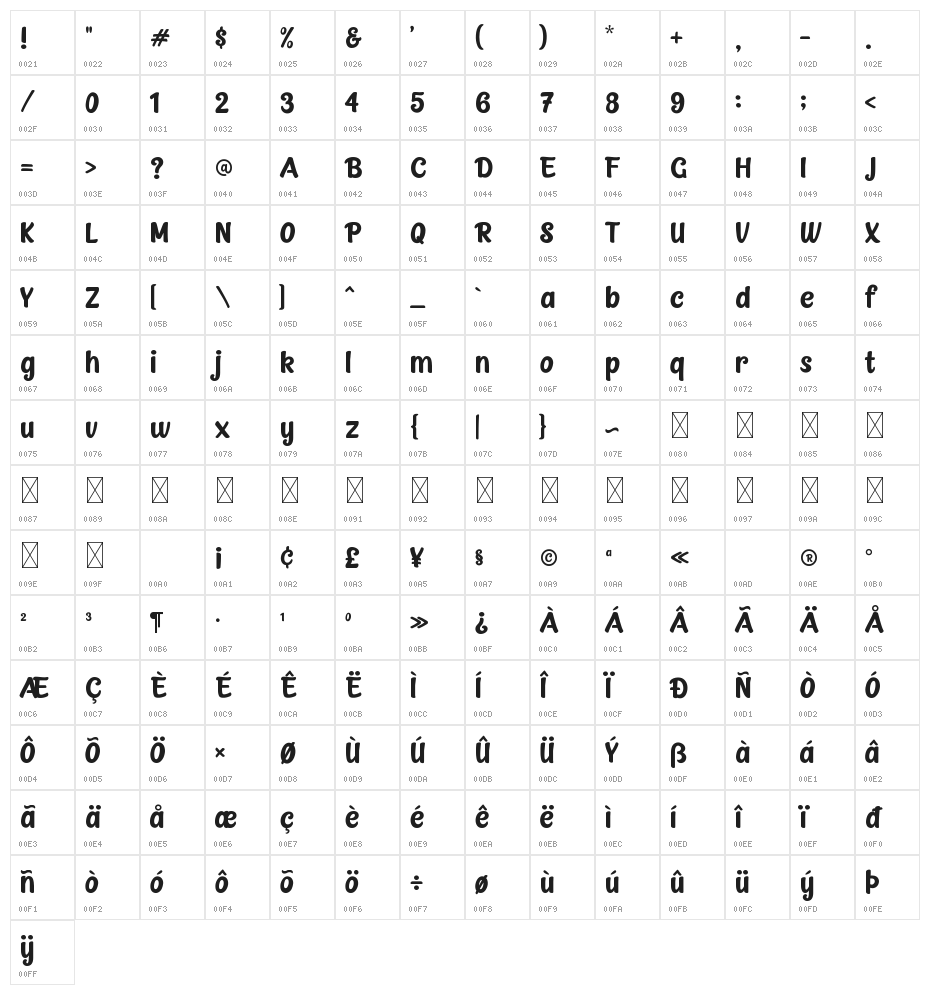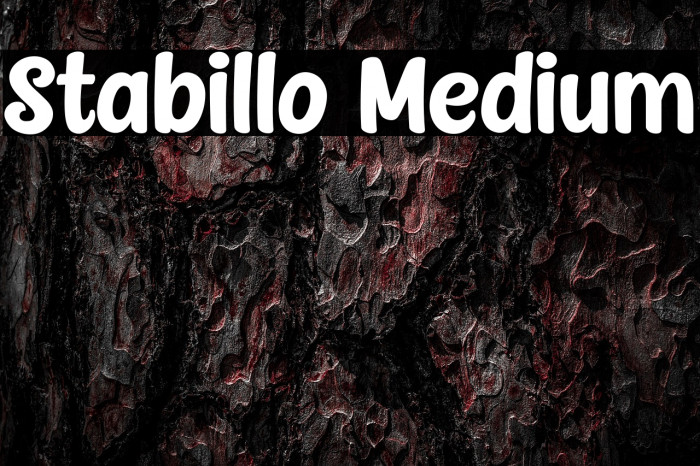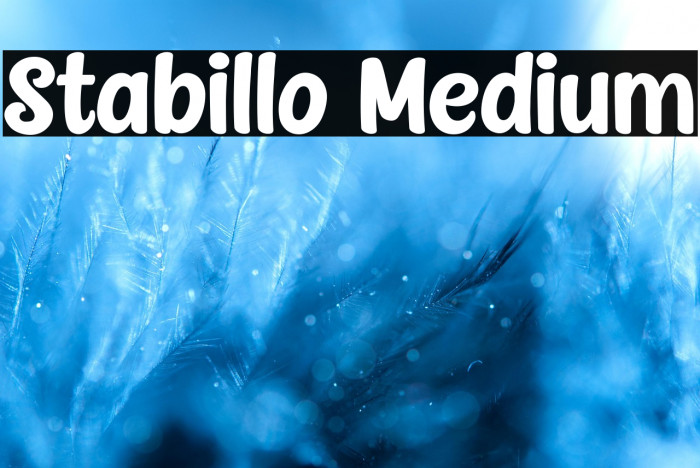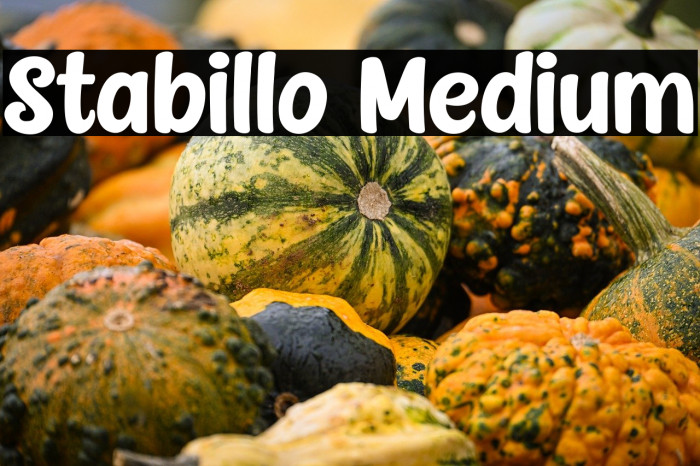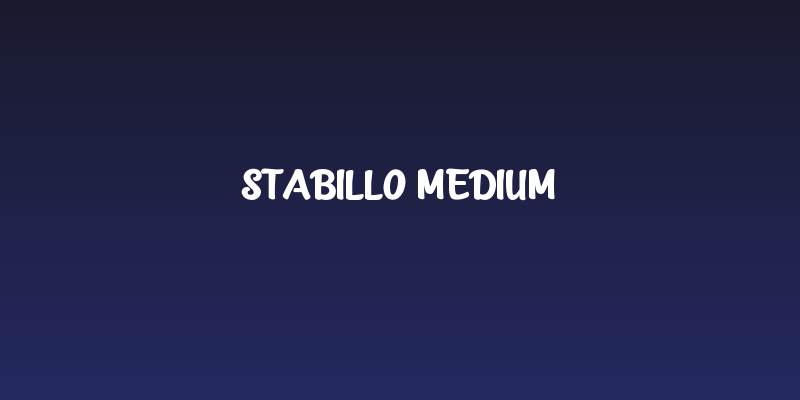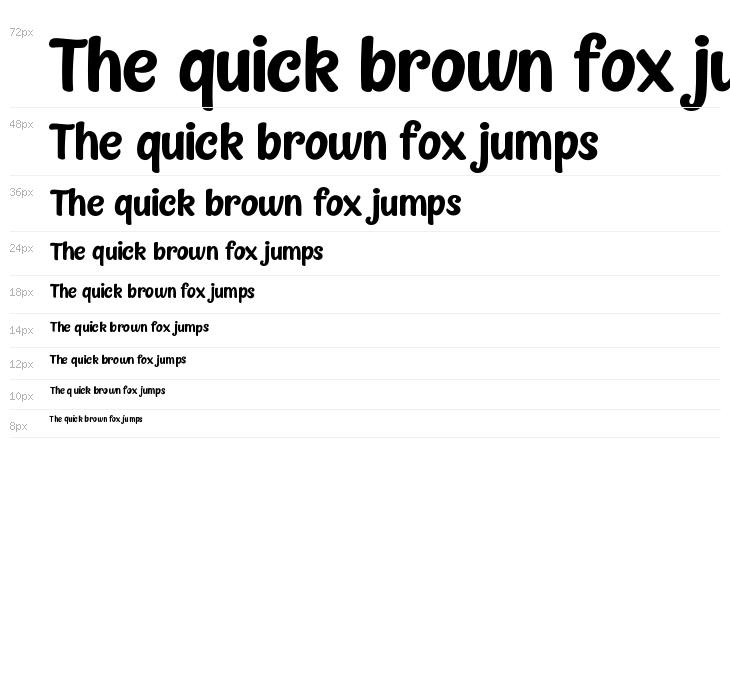
Stabillo Medium Font
Stabillo Medium Description
This font features a bold and playful style with rounded edges and a smooth flow, giving it a friendly and approachable appearance. The uppercase letters are slightly wider than the lowercase, maintaining a consistent weight throughout. The numerals are well-balanced, matching the overall aesthetic of the alphabet. Special characters are designed with the same playful curves, ensuring uniformity across all glyphs. The font's boldness makes it highly legible, even at smaller sizes, while its rounded forms add a touch of warmth and personality.
| Proposed Projects | Ideal for children's books, playful branding, casual invitations, and social media graphics. |